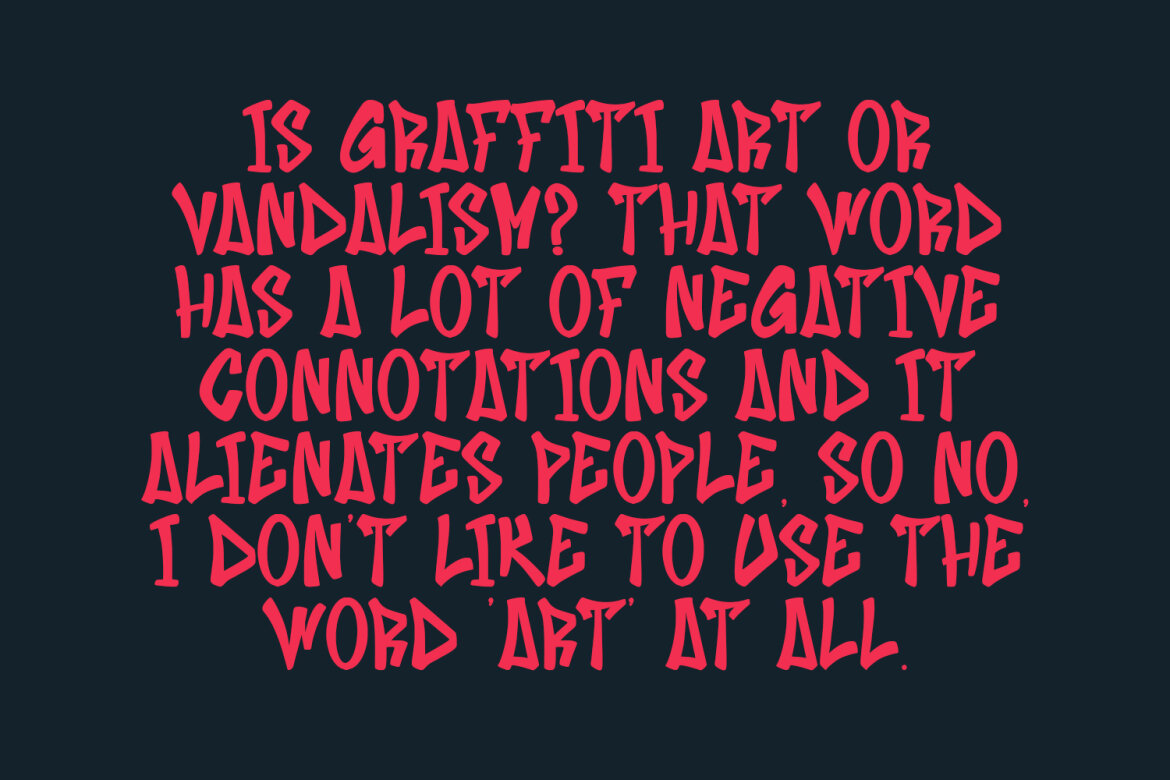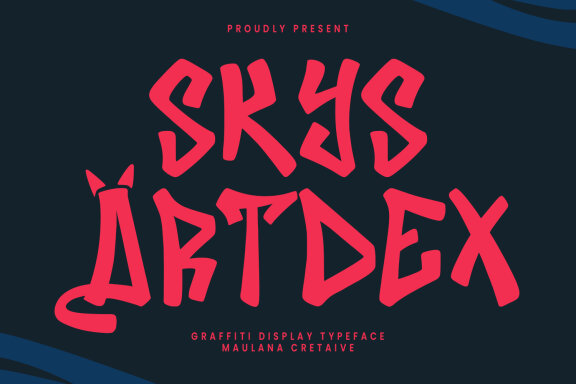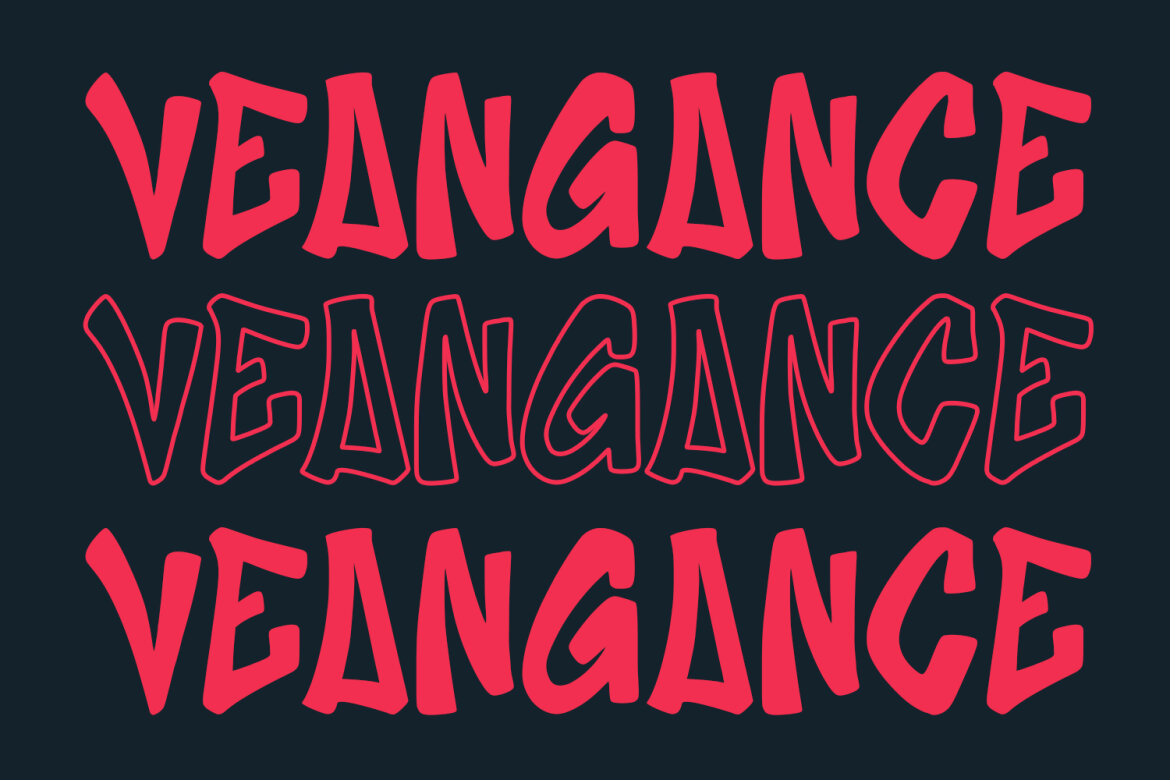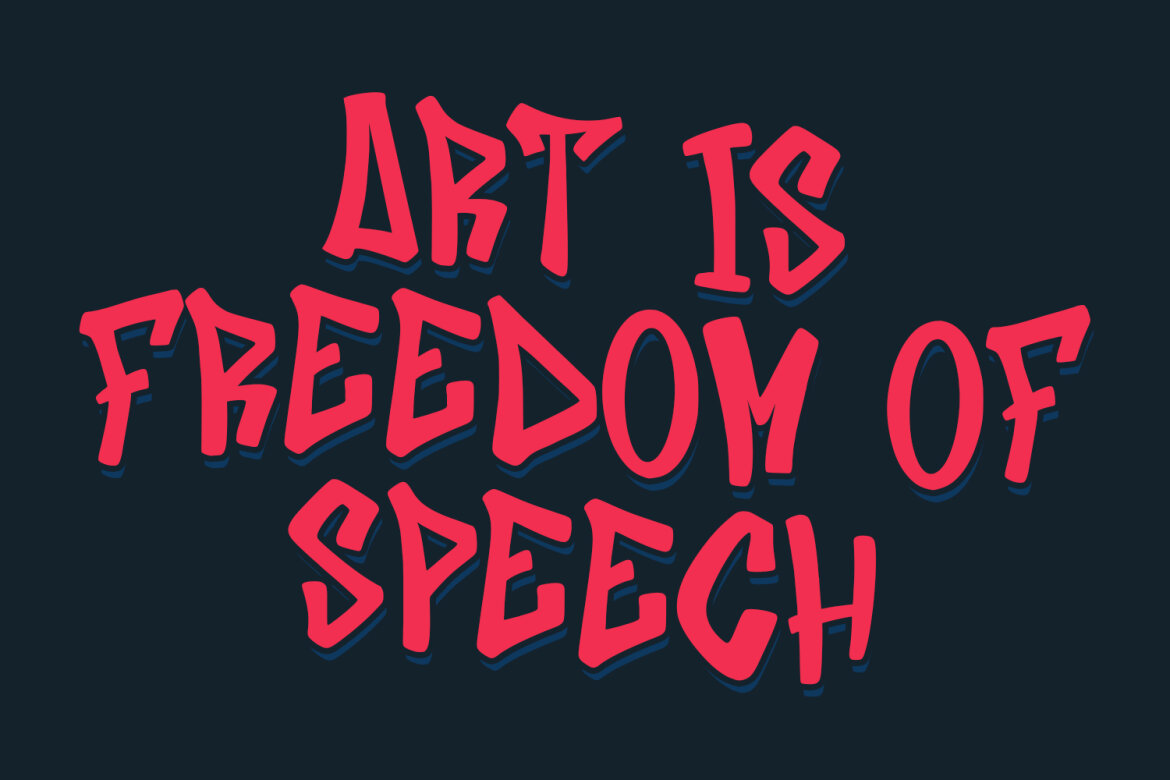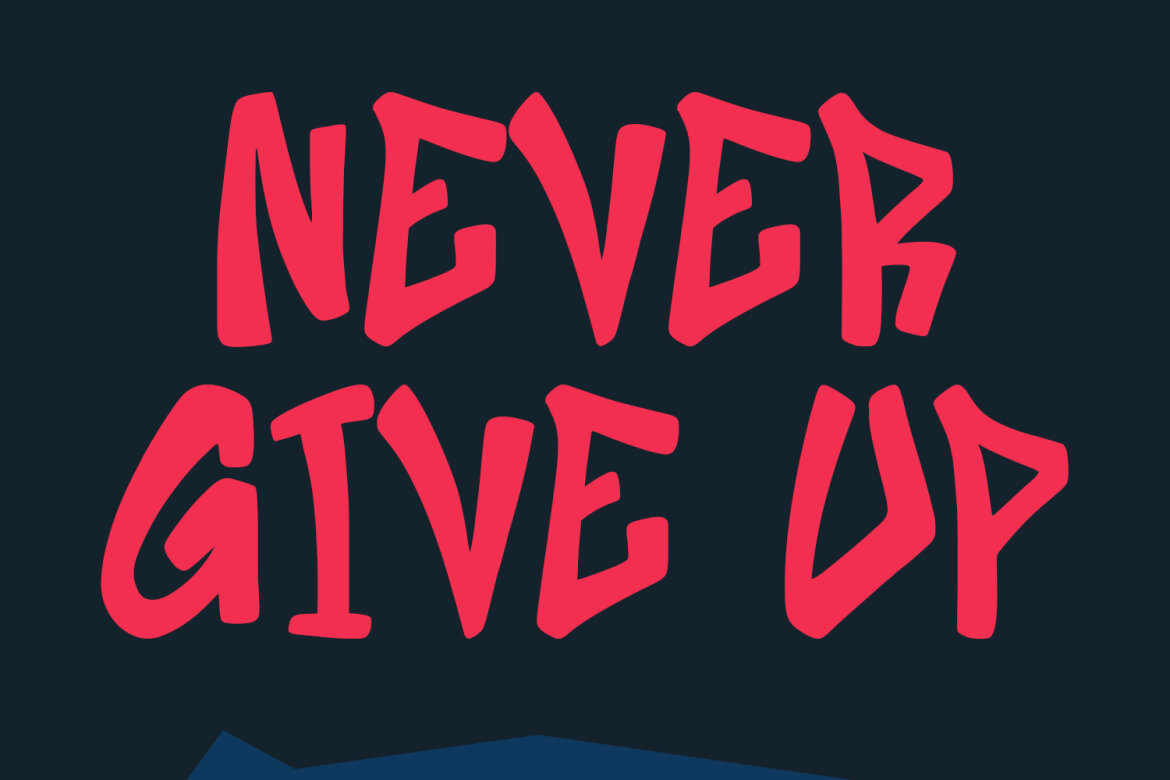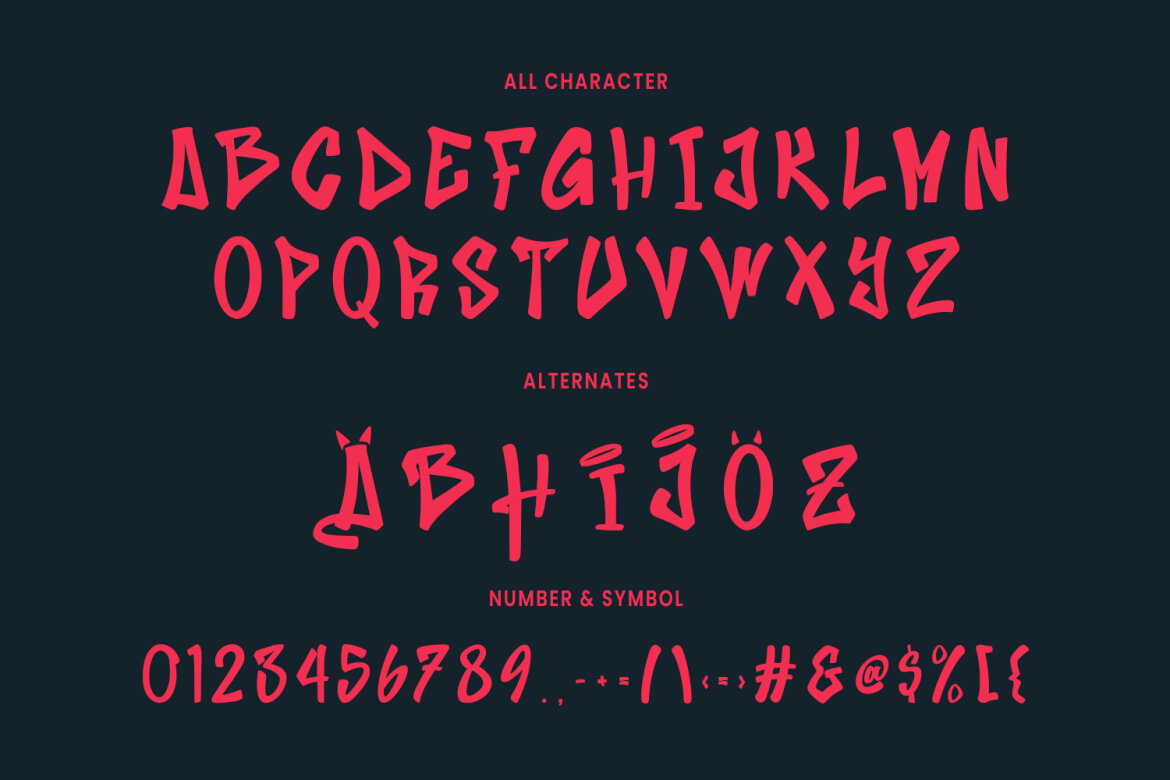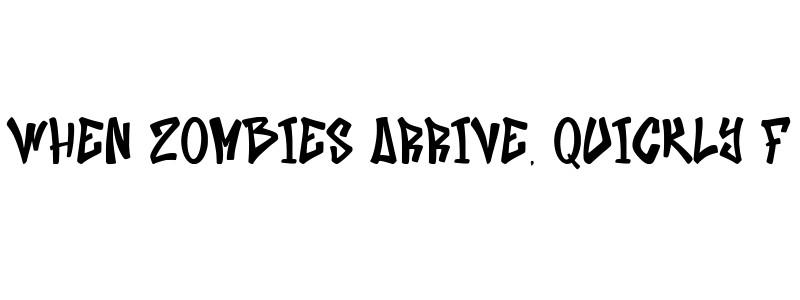
Skys Artdex Graffiti FREE Font
Skys Artdex graffiti display font. Bold stroke, fun character with a bit of ligatures and alternates. To give you an extra creative work. Skys Artdex graffiti display font support multilingual more than 100+ language. This font is good for logo design, Social media, Movie Titles, Books Titles, a short text even a long text letter and good for your secondary text font with script or serif. Make a stunning work with Skys Artdex graffiti display font.